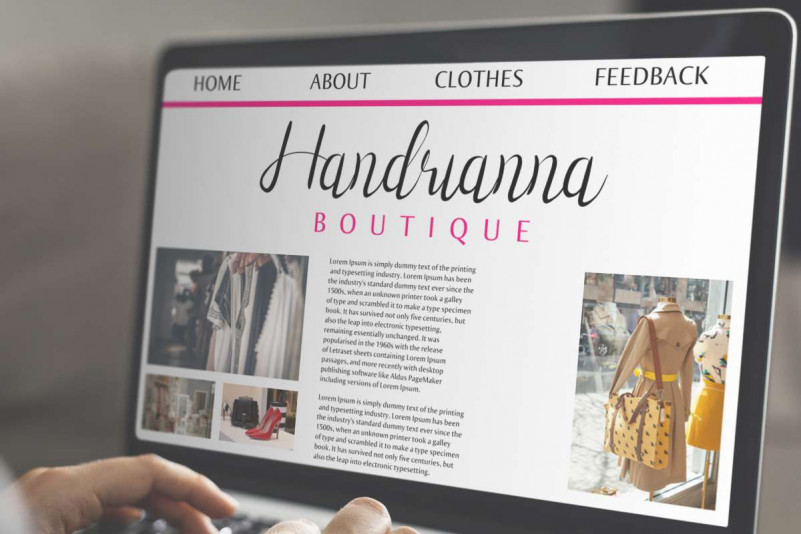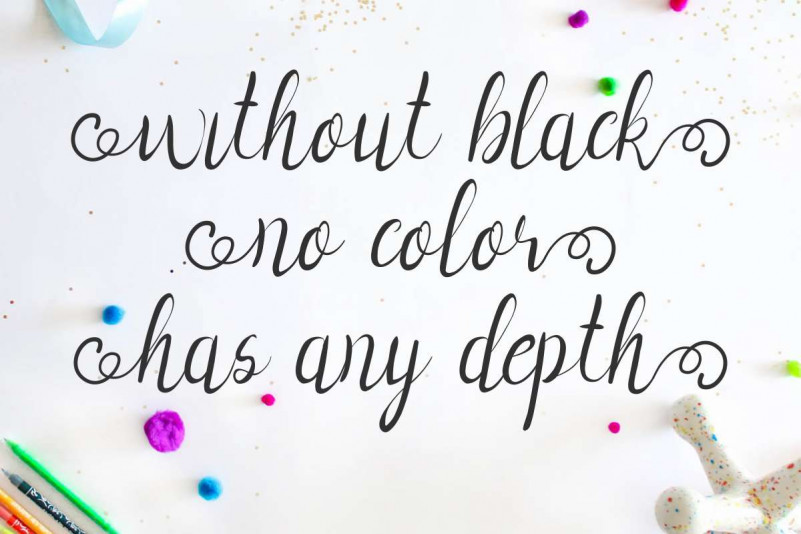
Vanellofa Handwritting Font
Vanellofa Script Font has many alternate glyphs so you can explore further more. This font will suits many projects categories : Logo type, flyer, stationery, business card, signage, flyer, brochure etc. With your creativity, there’s no limit creation using with this font.